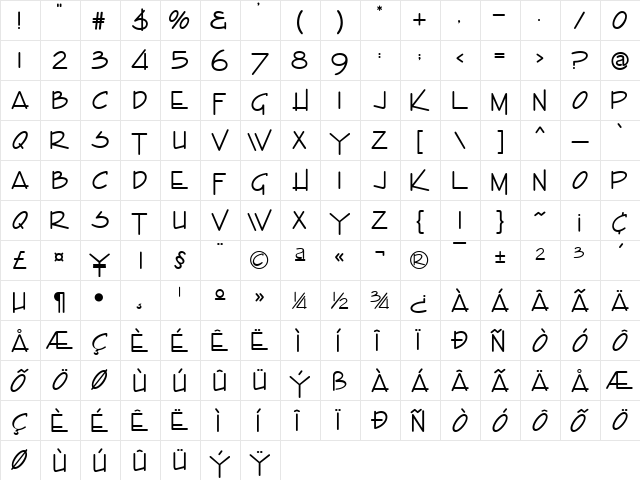
Enviro Regular Font Preview
Enviro Regular
Design Context for Enviro Typeface
Enviro is a composed and adaptable typeface that performs quietly and consistently across a wide range of design contexts.